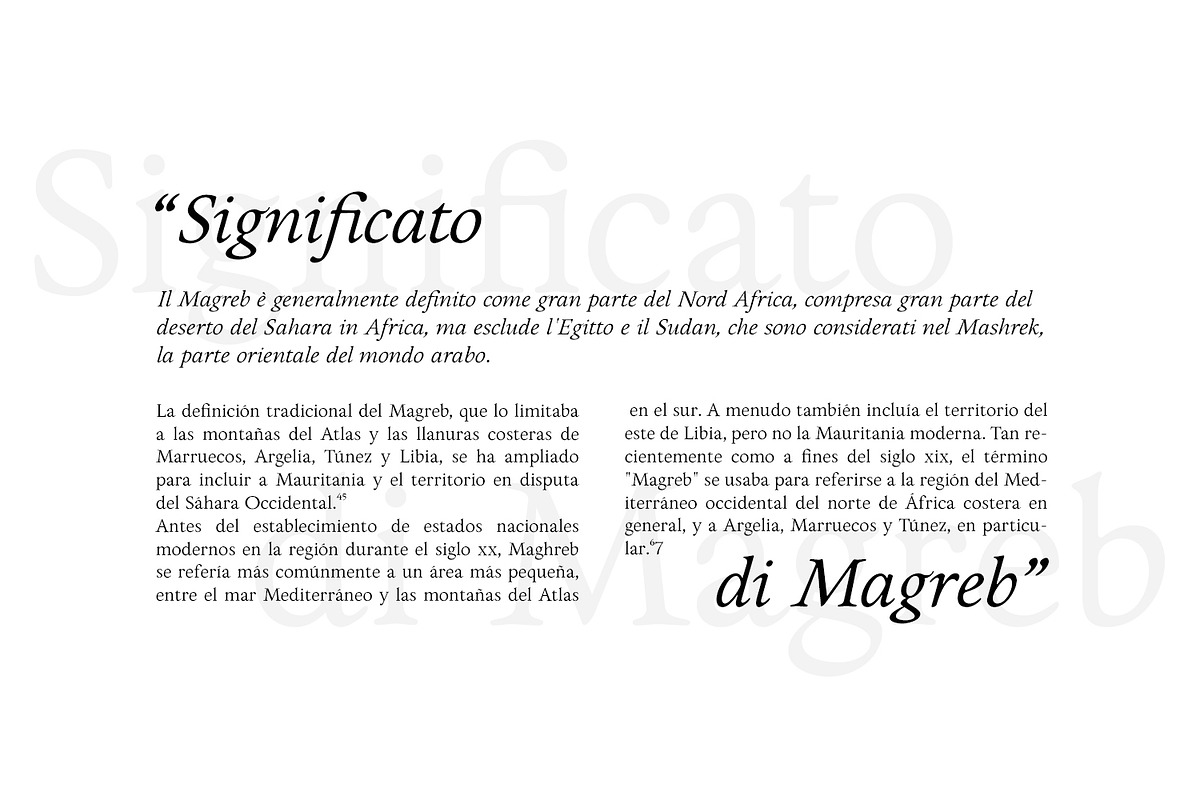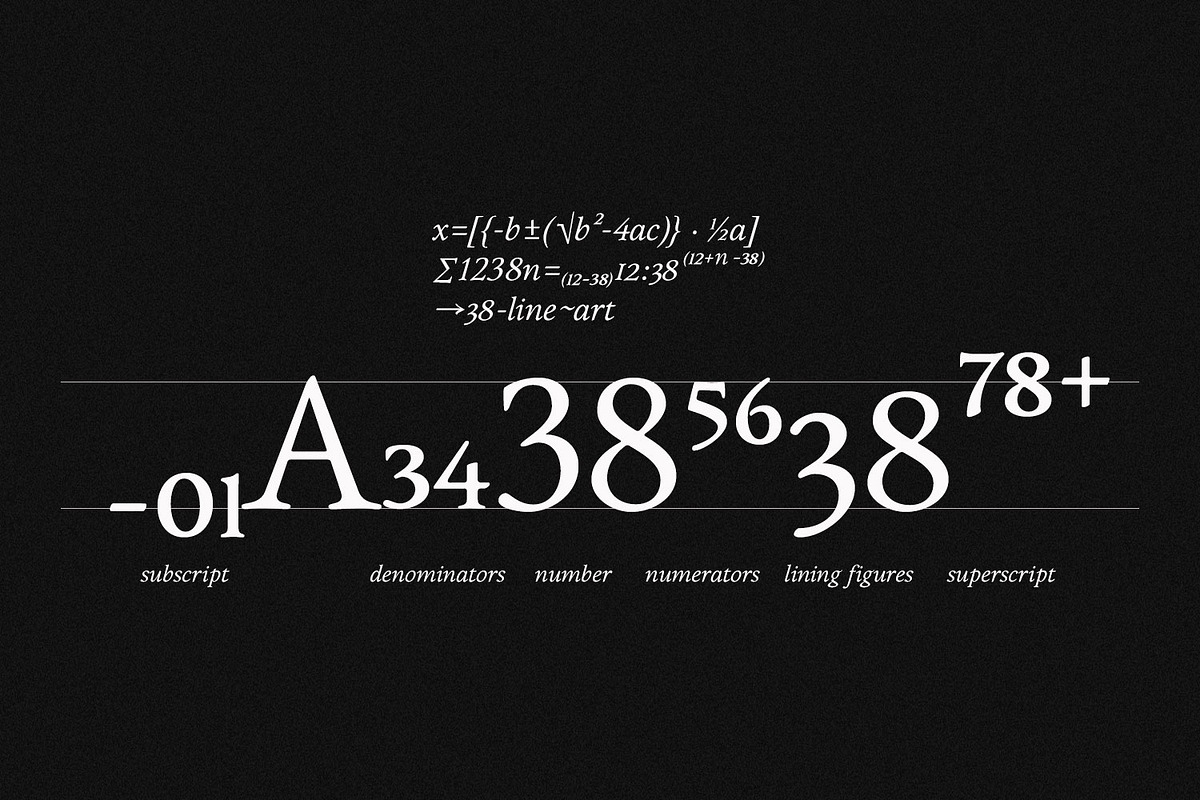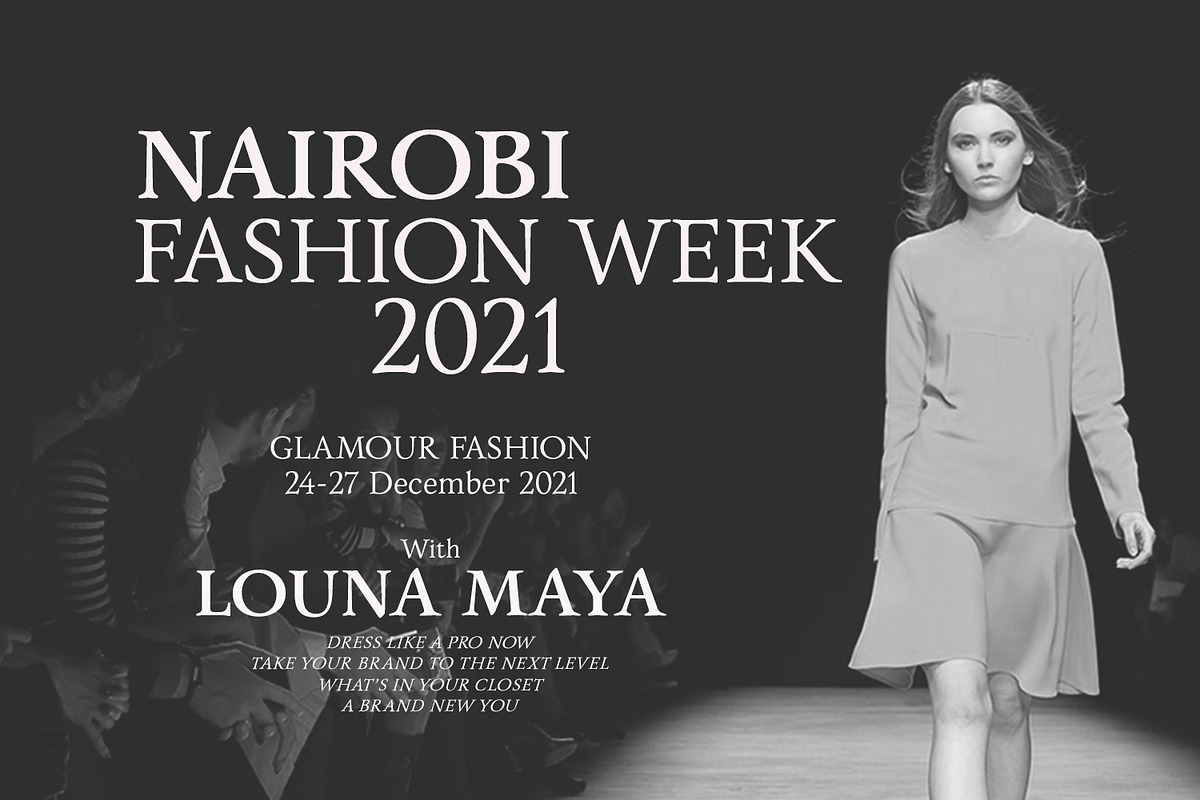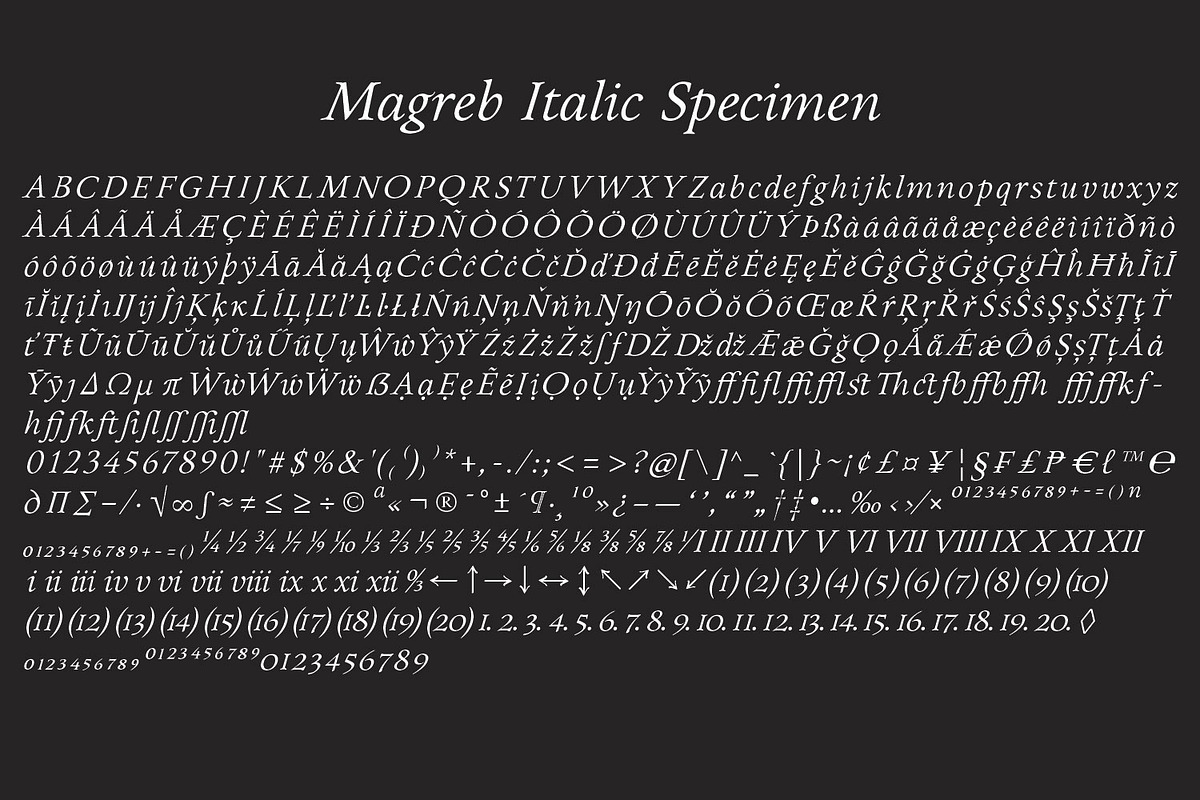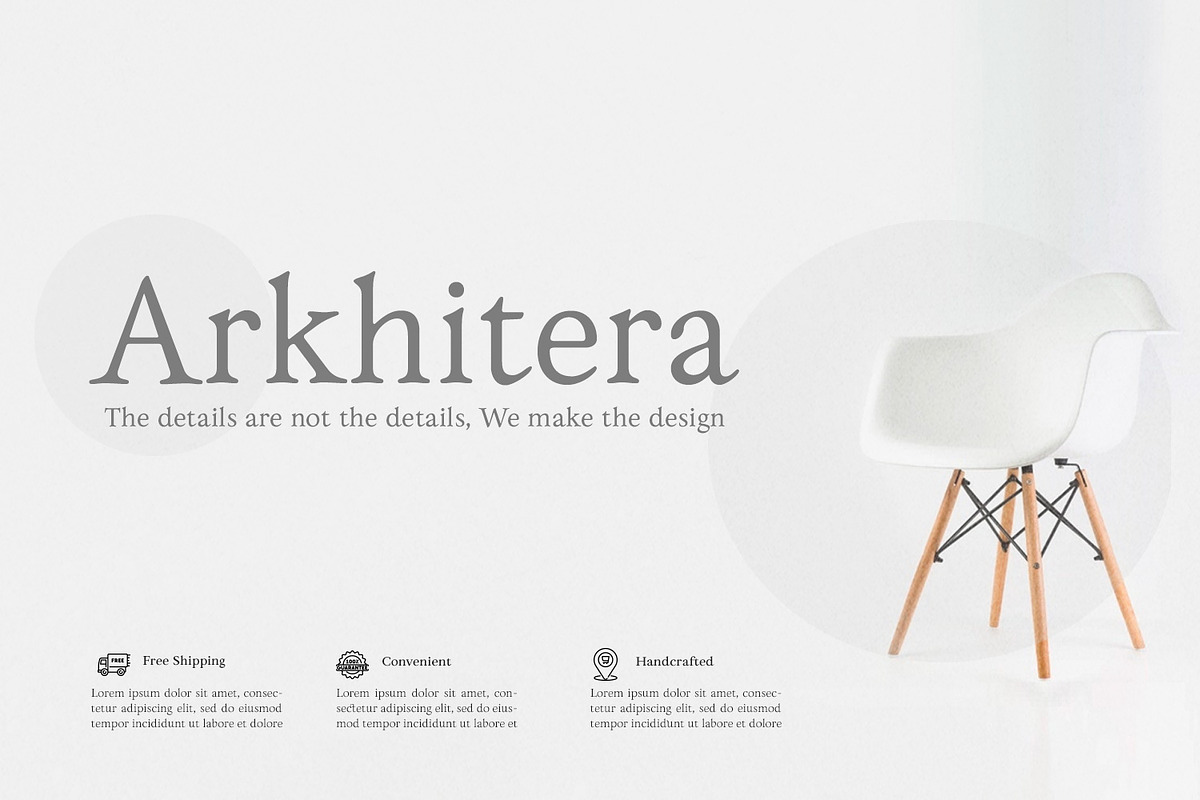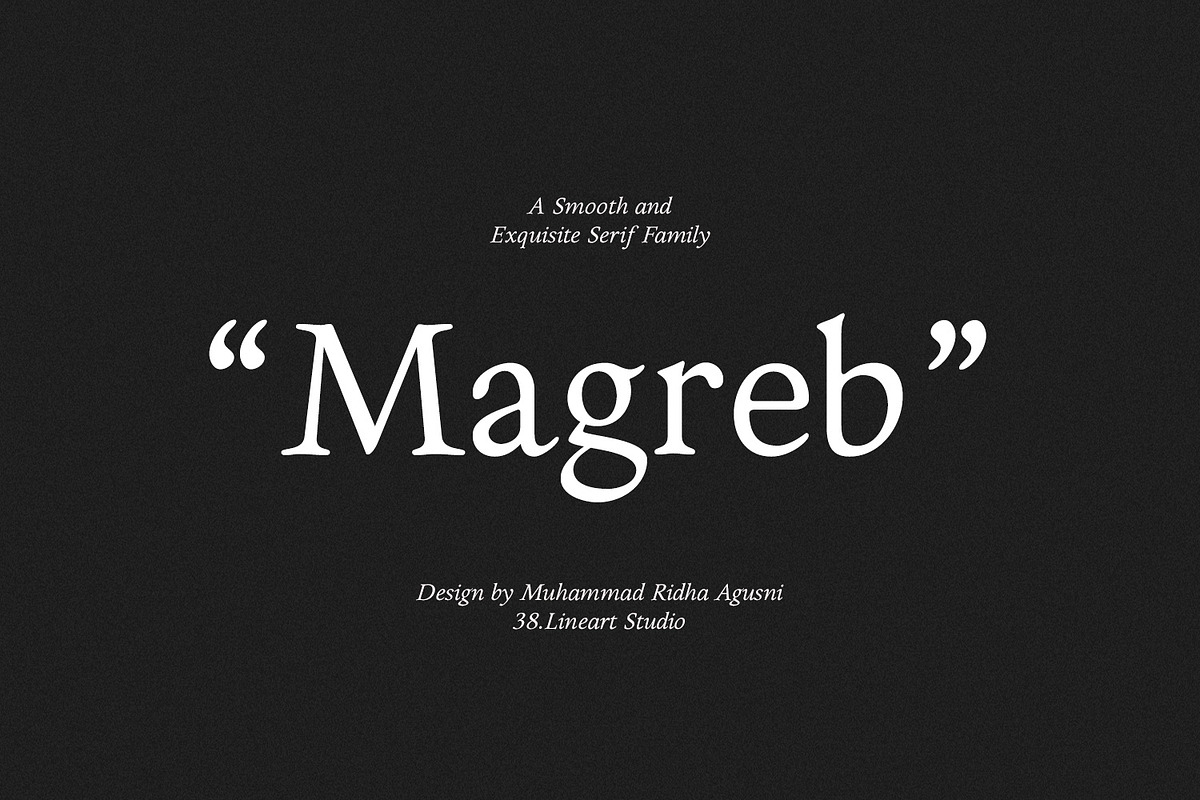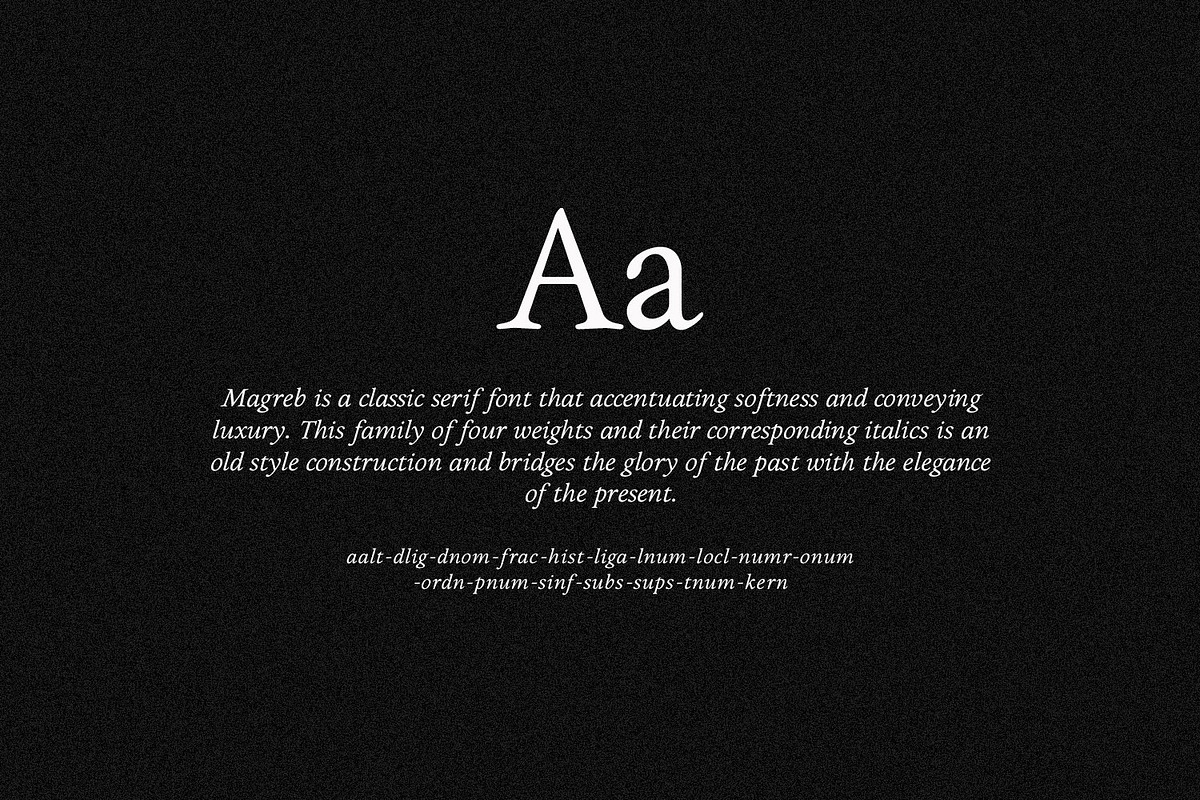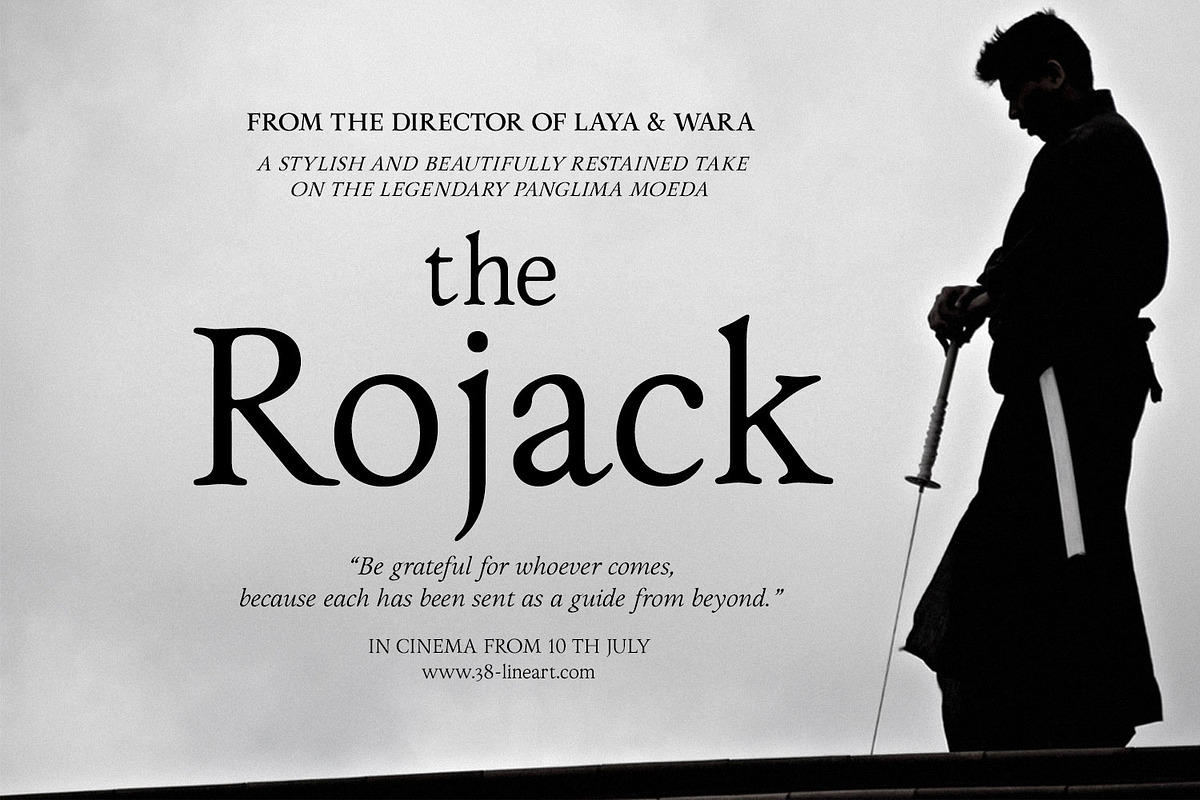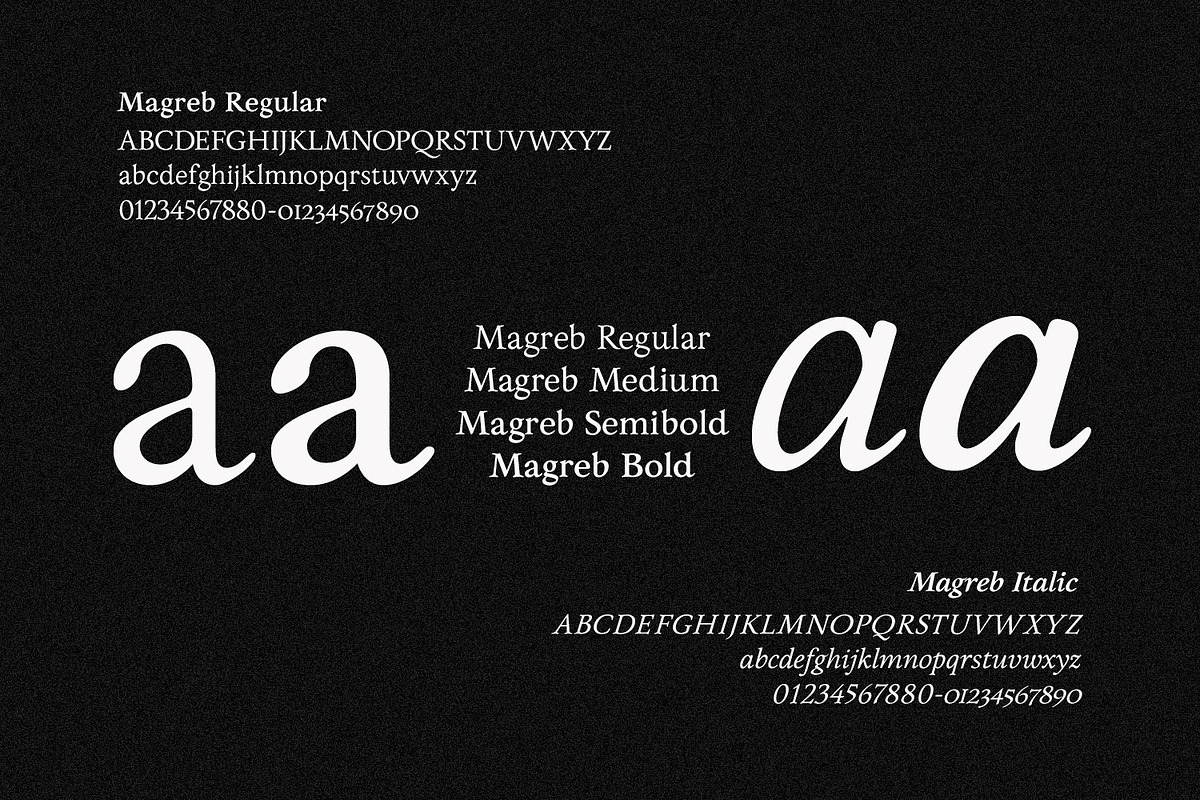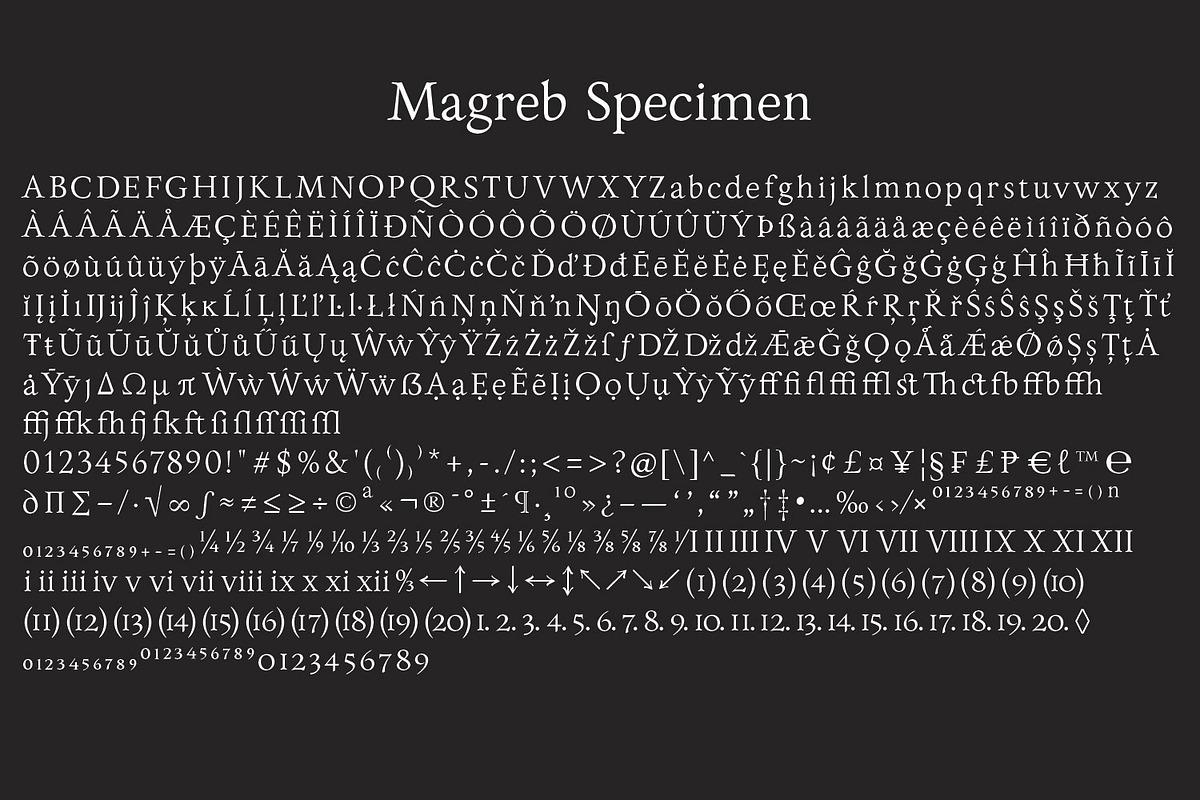
Magreb - Exquisite Serif Family
Magreb is a classic serif font inspired by Garamond and Venetian Serif Styles, accentuating softness and conveying luxury. This family of four weights and their corresponding italics is an old style construction and bridges the glory of the past with the elegance of the present.
The process of making this fonts starting with an ellipse brush with a certain slope so that it resembles calligraphy pen strokes. followed by creating the basic serif elements, refining the vectors and softening each joint so that it looks natural. Next, develop it from regular weight to weight bold.
Magreb has expanded the latin character set to support 200+ latin based languages. We added opentype features suchs superscript and subscript; Numeretor and Denominator; Old Style figures and lining figures.